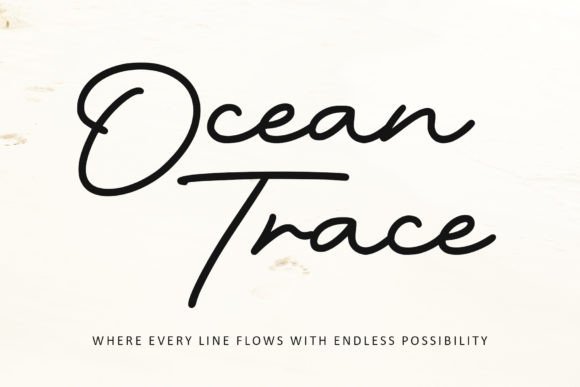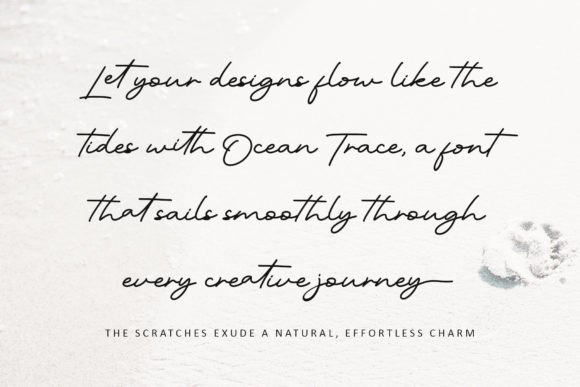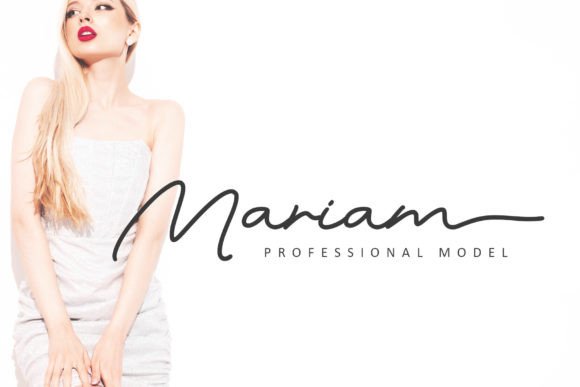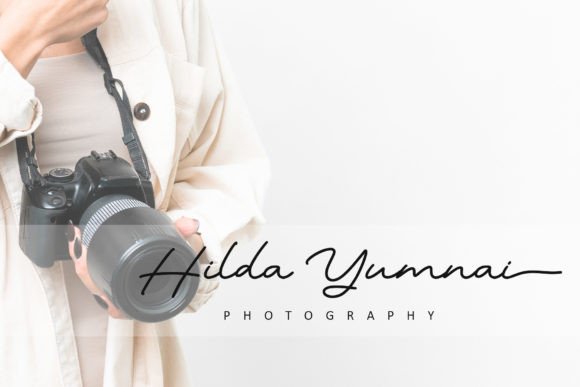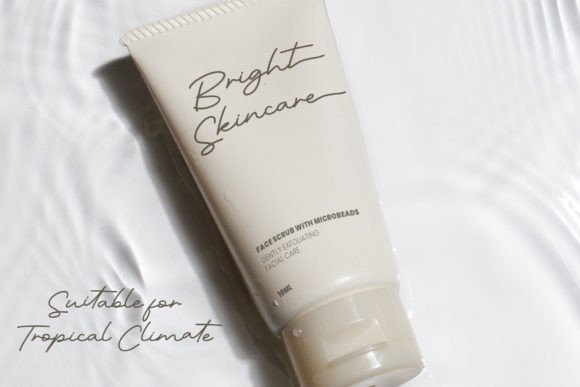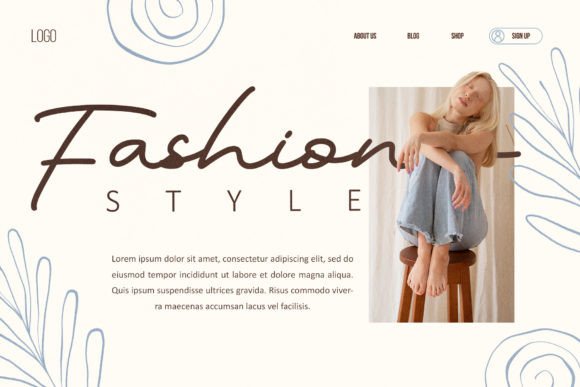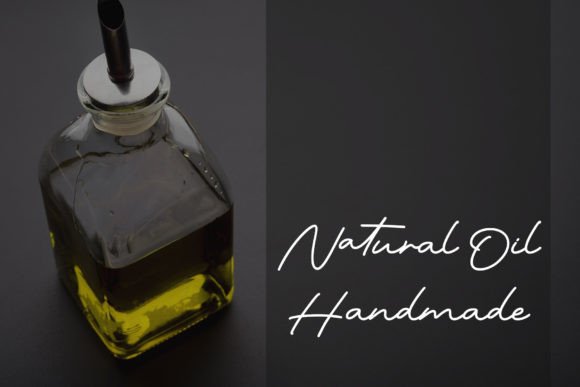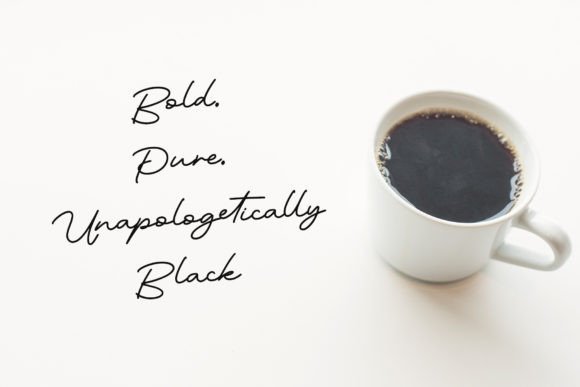
Ocean Trace Font
Dive into the serene elegance of Ocean Trace, a monoline font that captures the fluidity of the sea in every line and curve. Perfect for crafting refined posters, timeless branding, and sophisticated packaging, this font brings a sense of calm sophistication to any project. With Ocean Trace, your designs will flow effortlessly, drawing attention with its clean and graceful strokes. The PUA encoding offers easy access to a vast array of elegant glyphs and swashes, ensuring your creations are both distinctive and harmonious. Elevate your work with Ocean Trace, and let each letter glide like waves across your designs.